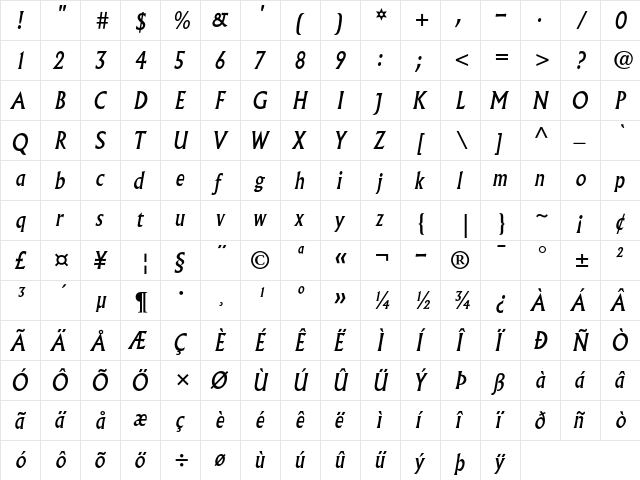
Albertus MT Italic
Design Context for Albertus MT Typeface
Albertus MT offers clean, dependable letterforms without strong stylistic allegiance, making it a practical choice for designers who need flexibility. The dynamic lean of this cut emphasises speed and emphasis in any layout.
Pro Tip: Use Albertus MT for emphasis, pull quotes, and subheadings where its slanted energy can add rhythm to the layout.